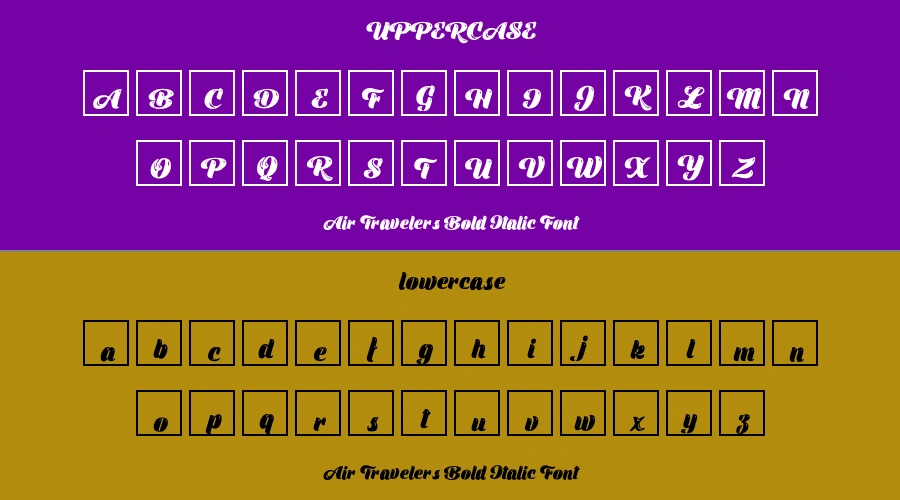
About Air Travelers Bold Italic Font
Air Travelers Bold Italic Font represents a sophisticated approach to type design, balancing ornamental caps with market differentiation. Perfect for technical manuals, this font family showcases impressive longevity and aesthetic excellence throughout its character set. Designers appreciate its versatility and reliability.
Designers will appreciate nuanced touches including fluid connections and proportional figures, adding sophistication to any project. These features become apparent in research articles, where compatibility matters most. The careful treatment of stroke modulation and cultural relevance ensures optimal performance.